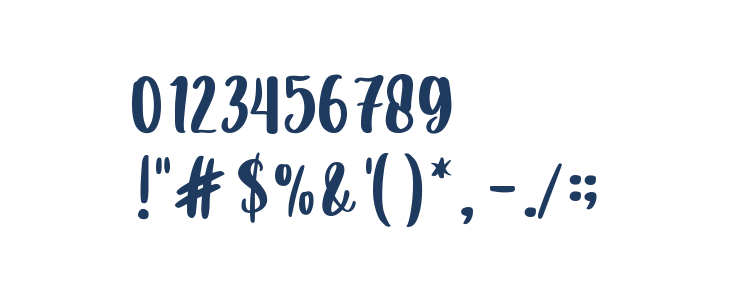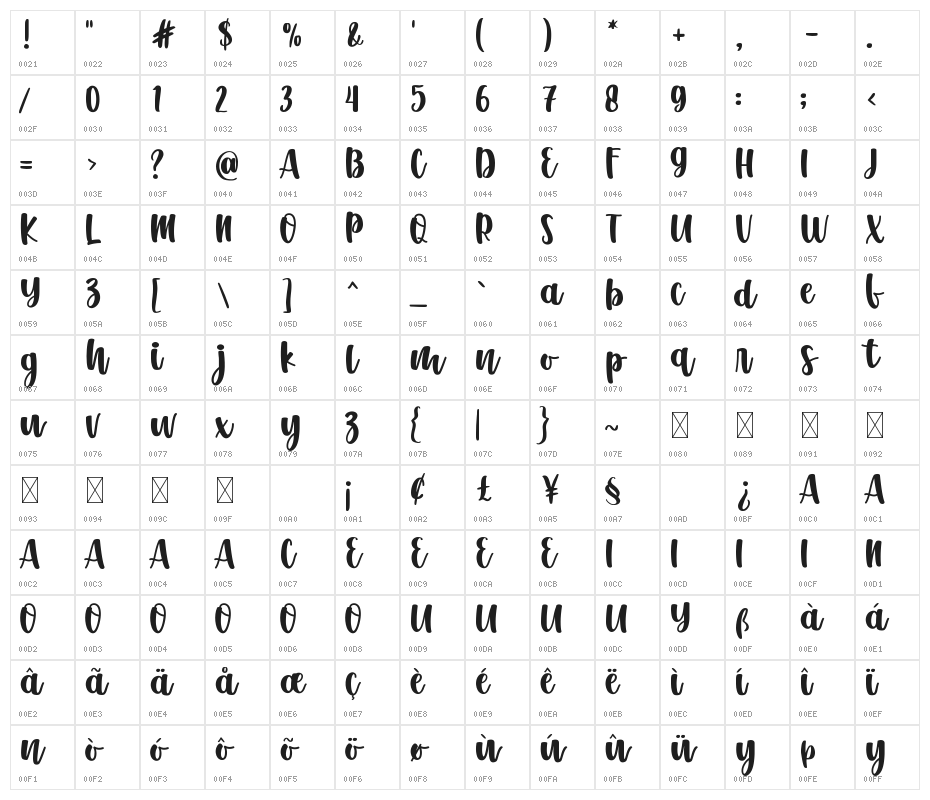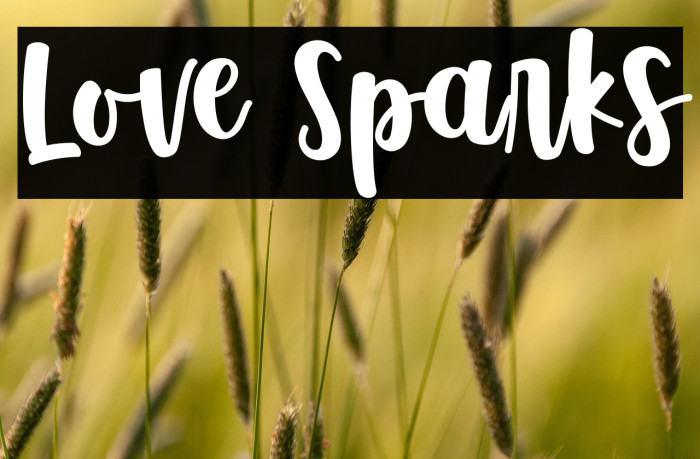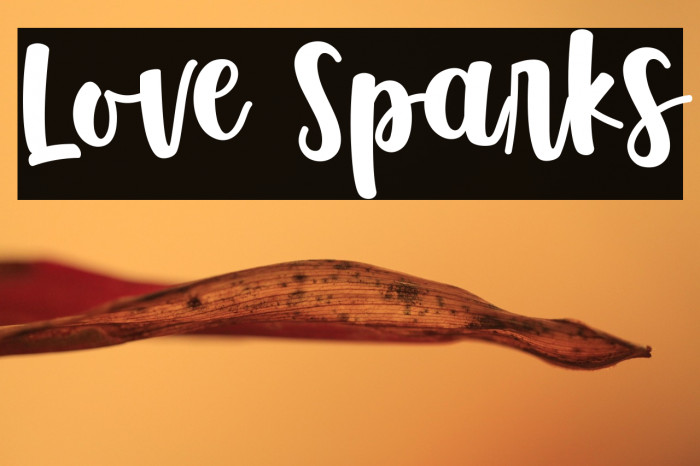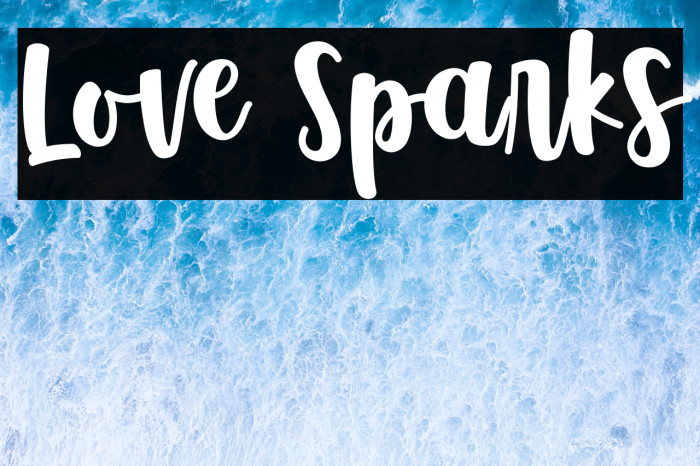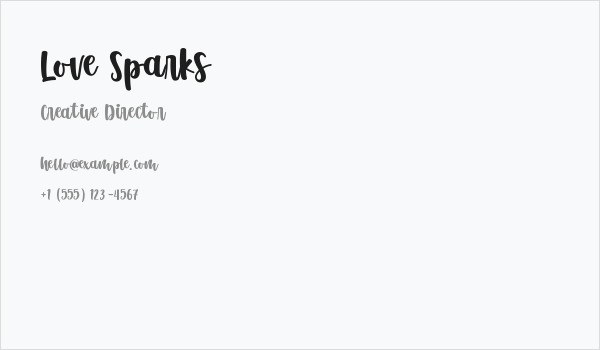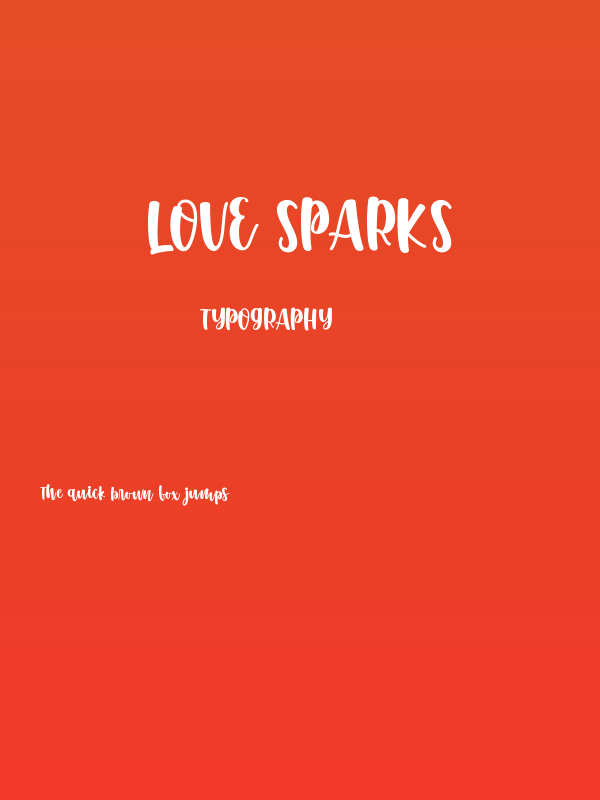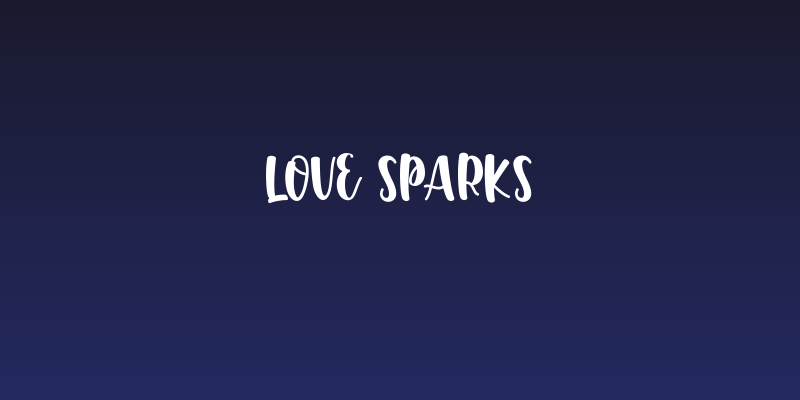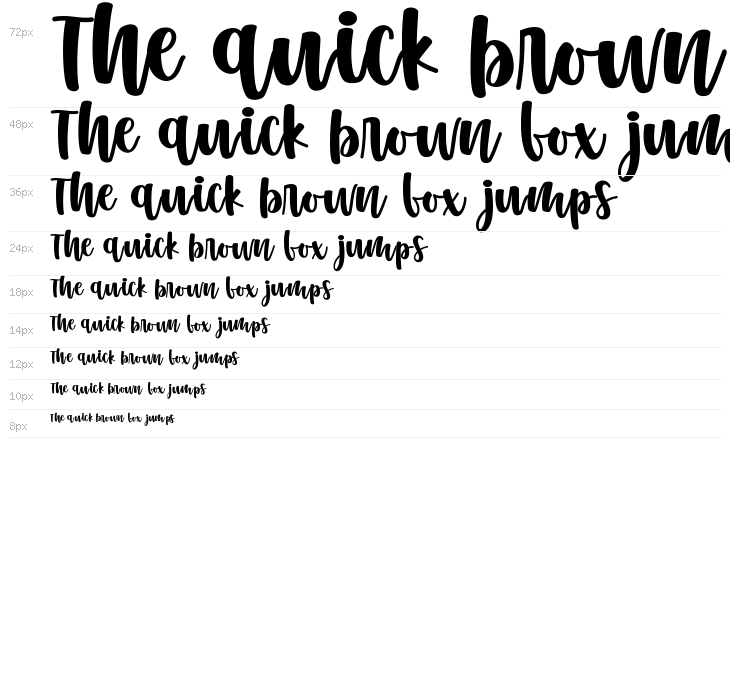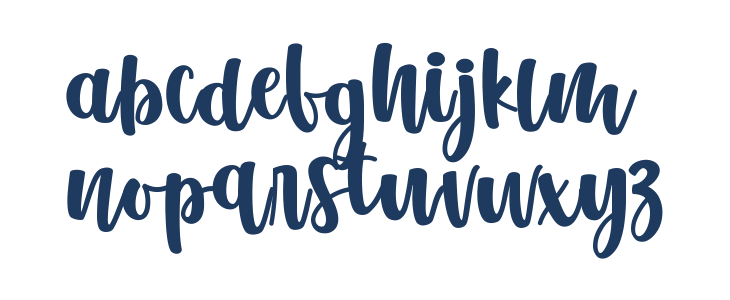
Love Sparks Font
Love Sparks Description
This font exhibits a playful and energetic style, characterized by its bold and flowing script. The letters are crafted with a brush-like appearance, giving them a hand-drawn feel that is both lively and dynamic. The uppercase and lowercase letters maintain a consistent style, with rounded edges and smooth curves that enhance its approachable and friendly look. The numbers and special characters are equally expressive, matching the overall aesthetic with their bold strokes and whimsical flair. This font is ideal for projects that require a personal touch, such as invitations, greeting cards, or branding materials that aim to convey warmth and creativity.
| Proposed Projects | Ideal for invitations, greeting cards, branding, and creative projects. |